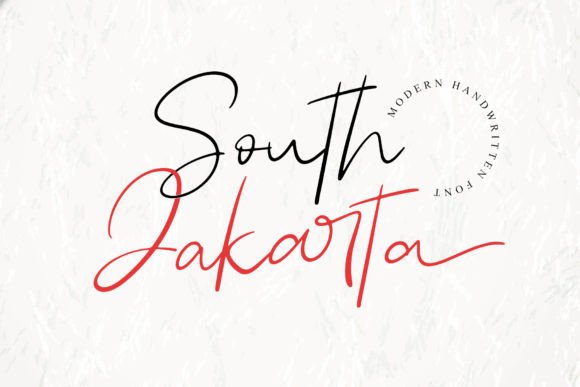
Step into the realm of exquisite typography with South Jakarta, a script font that radiates elegance and charm. This meticulously designed font, brought to you by Letterafa Studio, is an artistic masterpiece that will transform your designs into works of art.
Discover the beauty of South Jakarta, a font family crafted for the discerning eye. Its graceful curves and subtle strokes evoke a sense of sophistication and allure that will captivate your audience. This script font is a visual delight, perfect for adding a touch of refinement to your projects.
Immerse yourself in the world of script tattoos, where South Jakarta truly shines. With its PUA encoding, you can effortlessly access a treasure trove of glyphs and ligatures, unlocking endless possibilities for creative expression. Whether you're designing logos, invitations, or social media posts, South Jakarta will elevate your designs to new heights.
Unleash your creativity and let South Jakarta be your guide. This font is a versatile chameleon, adapting seamlessly to a wide range of design styles. From whimsical illustrations to sleek and modern layouts, South Jakarta effortlessly blends in, adding a touch of elegance wherever it goes.
With South Jakarta, you'll discover a font that speaks to your soul, evoking emotions and capturing the essence of your message. Its delicate charm will leave a lasting impression on your audience, making your designs truly unforgettable.
Embrace the beauty of South Jakarta and embark on a typographic journey like no other. Let your creativity soar as you explore the endless possibilities this font offers. Transform your designs into captivating masterpieces that will leave your audience spellbound.